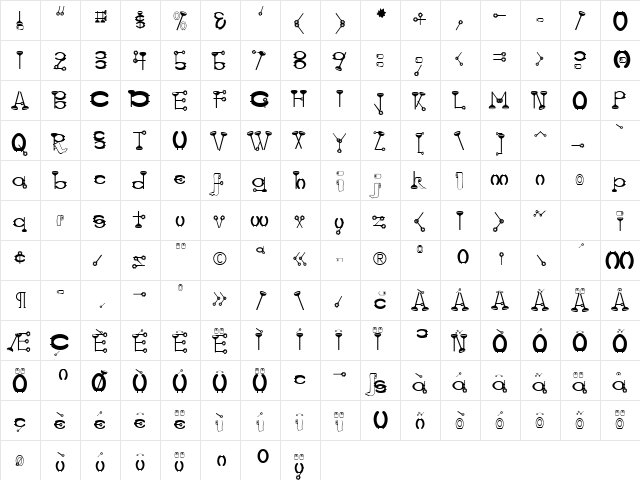
WaterCloset Regular
Design Context for WaterCloset Typeface
WaterCloset is a composed and adaptable typeface that performs quietly and consistently across a wide range of design contexts.